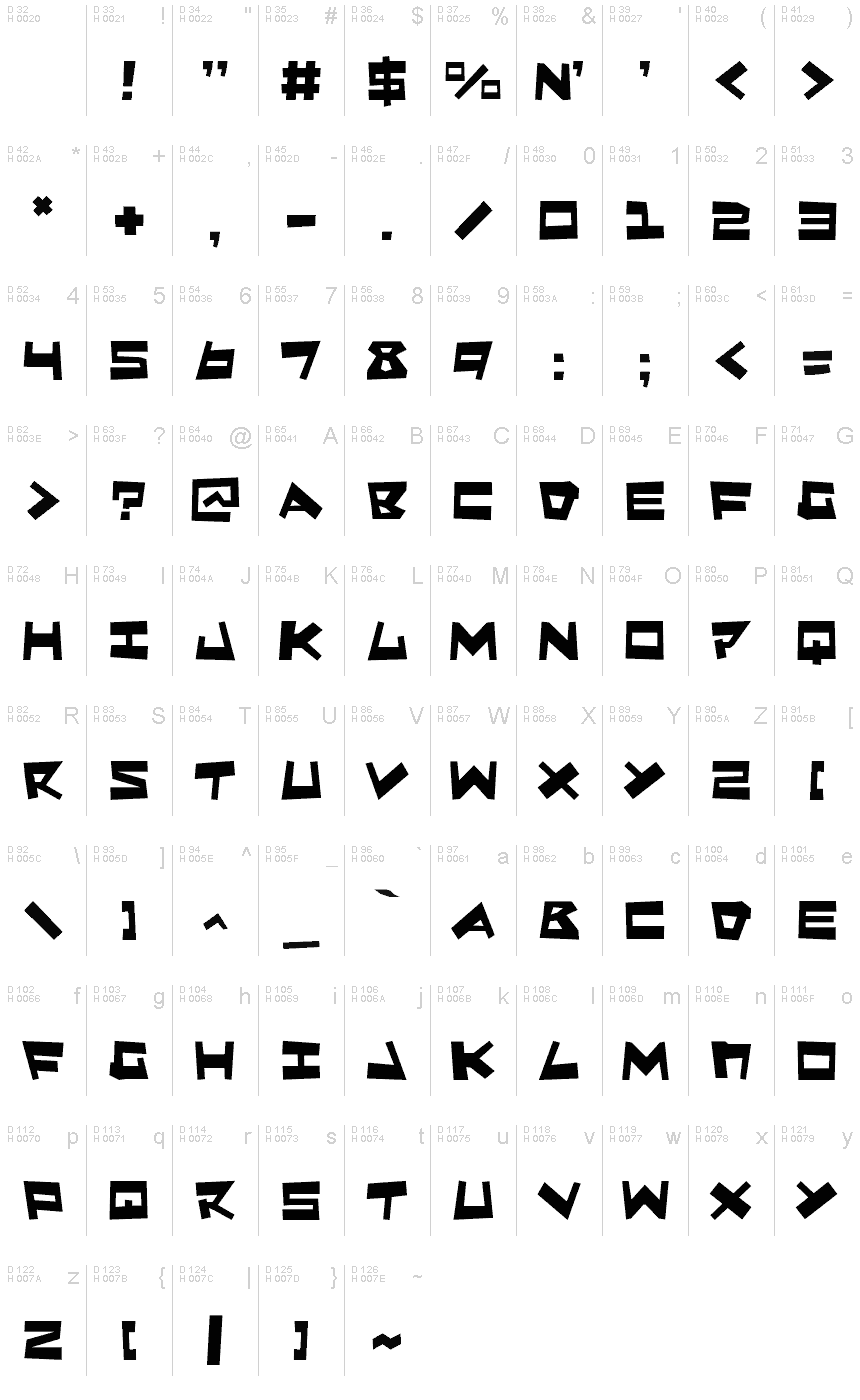
Quake & Shake
Quake & Shake is not your ordinary font. Designed by Iconian Fonts, this display typeface combines boldness and playfulness to create a unique and eye-catching visual experience. With its cartoon-inspired style, Quake & Shake adds a touch of fun and excitement to any creative project.
The bold weight of this font ensures that your message stands out, while the expanded width adds a sense of dynamism and movement to your designs. Whether you're designing posters, logos, or web graphics, Quake & Shake is the perfect choice to convey energy and vibrancy.
Its versatility makes it suitable for a wide range of projects in various industries. From children's books to gaming websites, Quake & Shake injects personality into every design. So why settle for ordinary when you can add a touch of whimsy with Quake & Shake? Let this font unleash your creativity and bring your ideas to life!